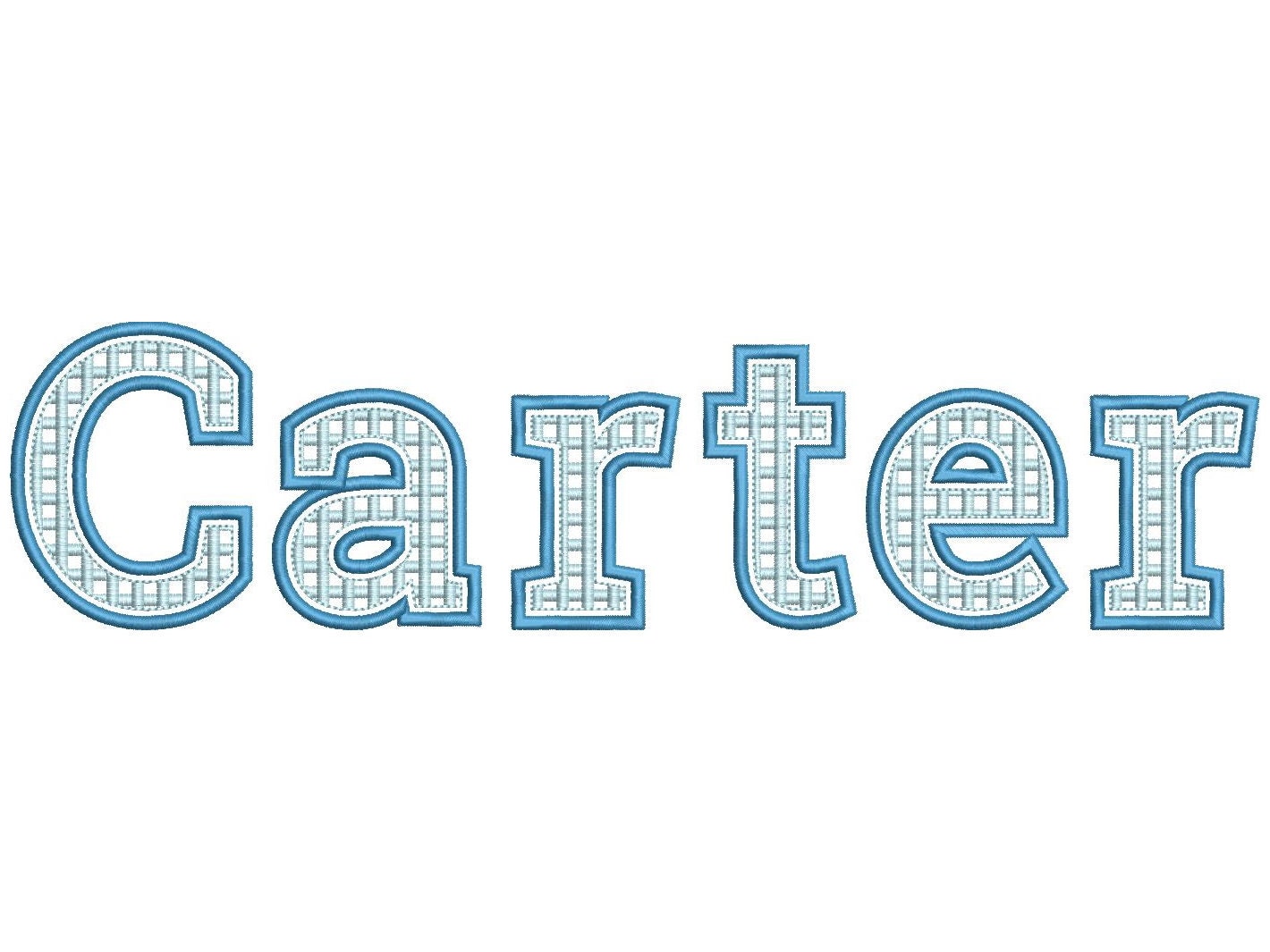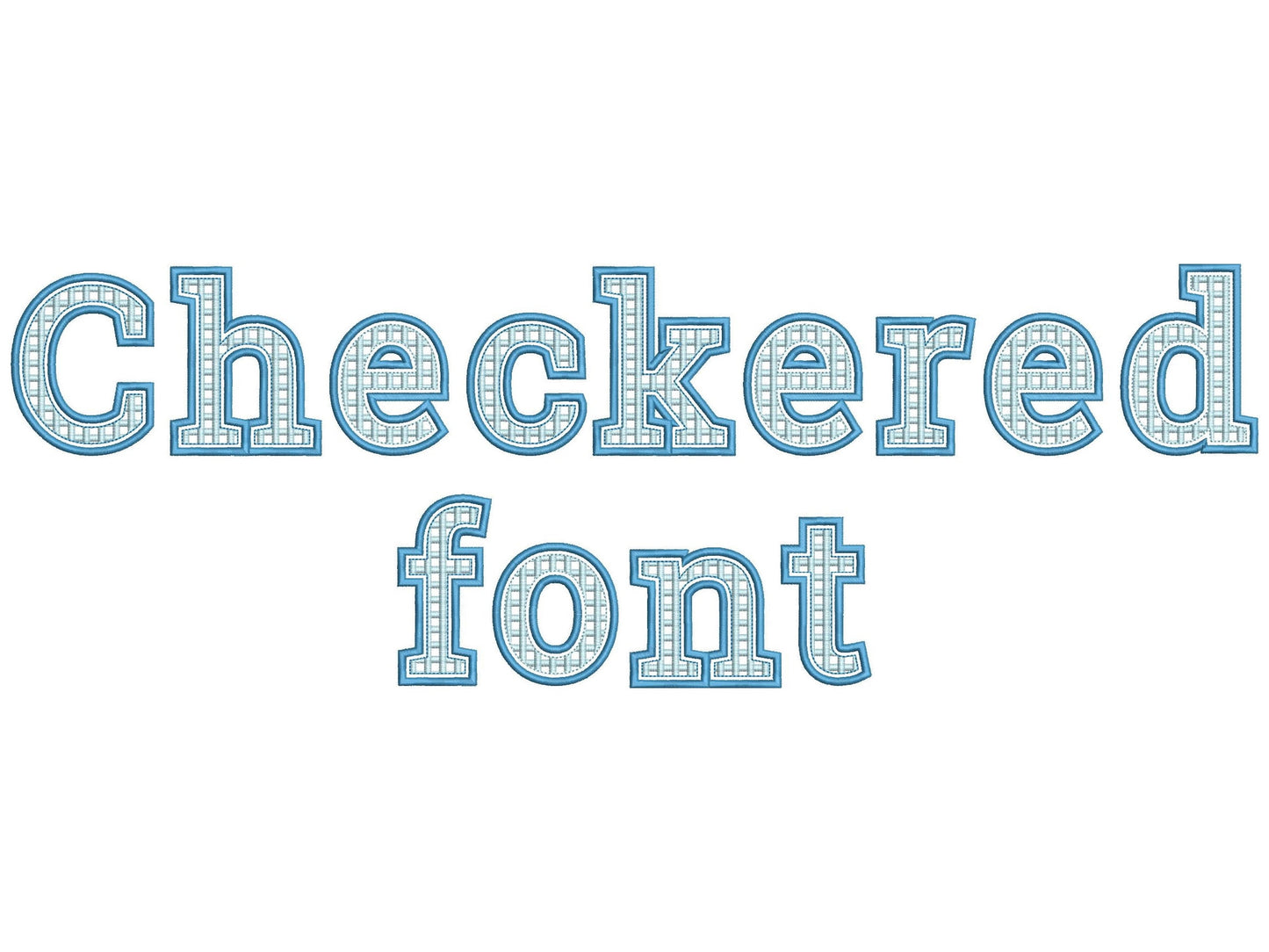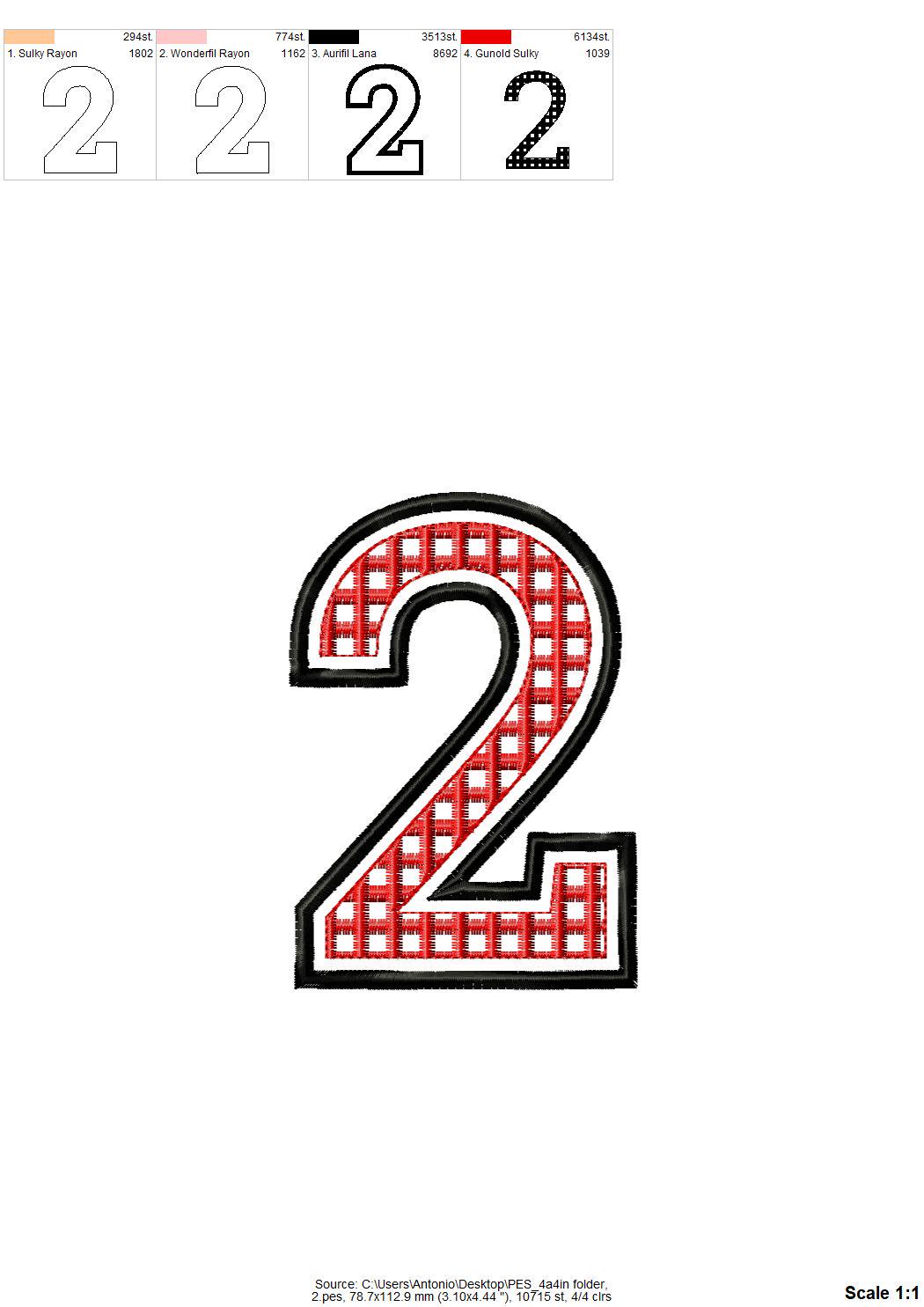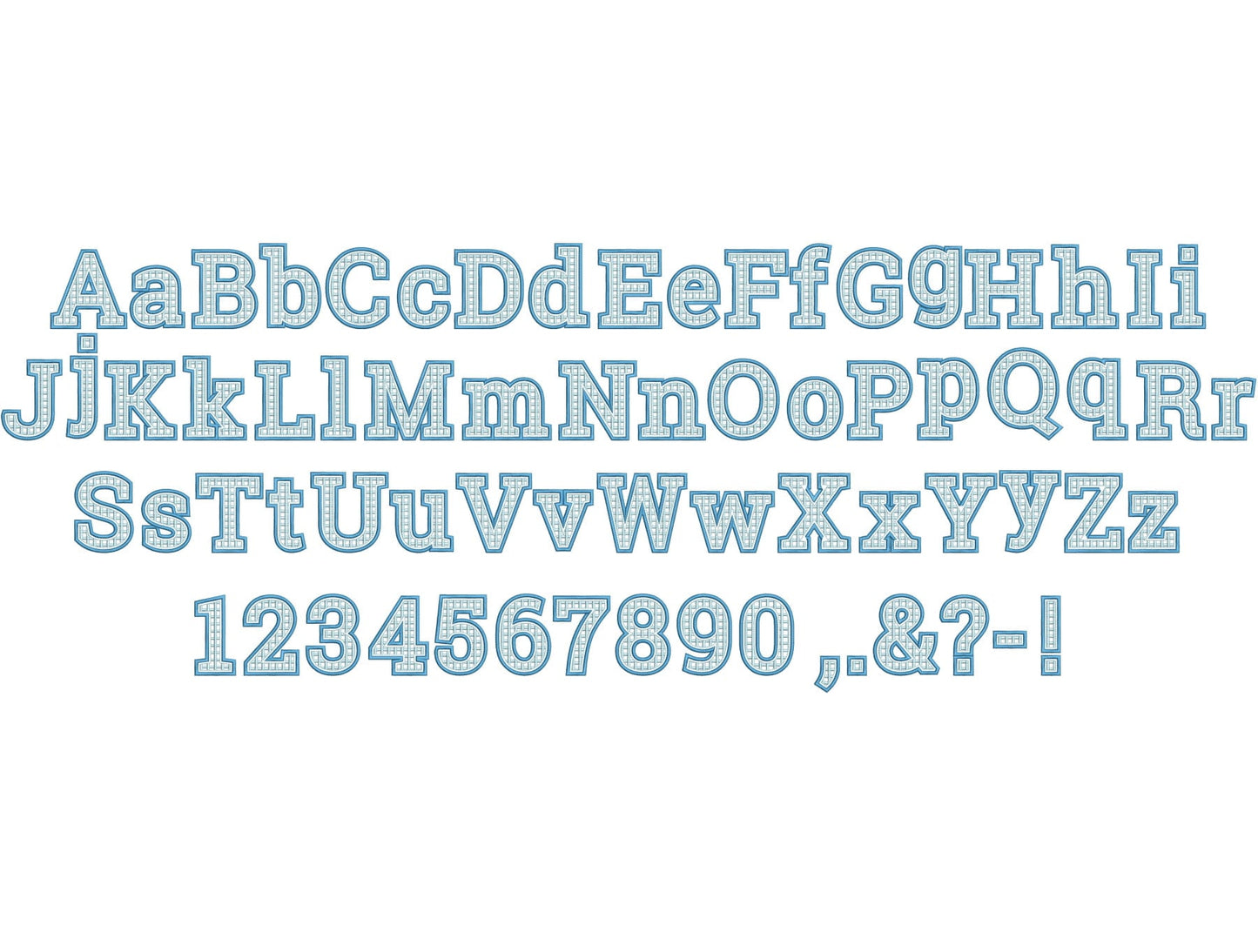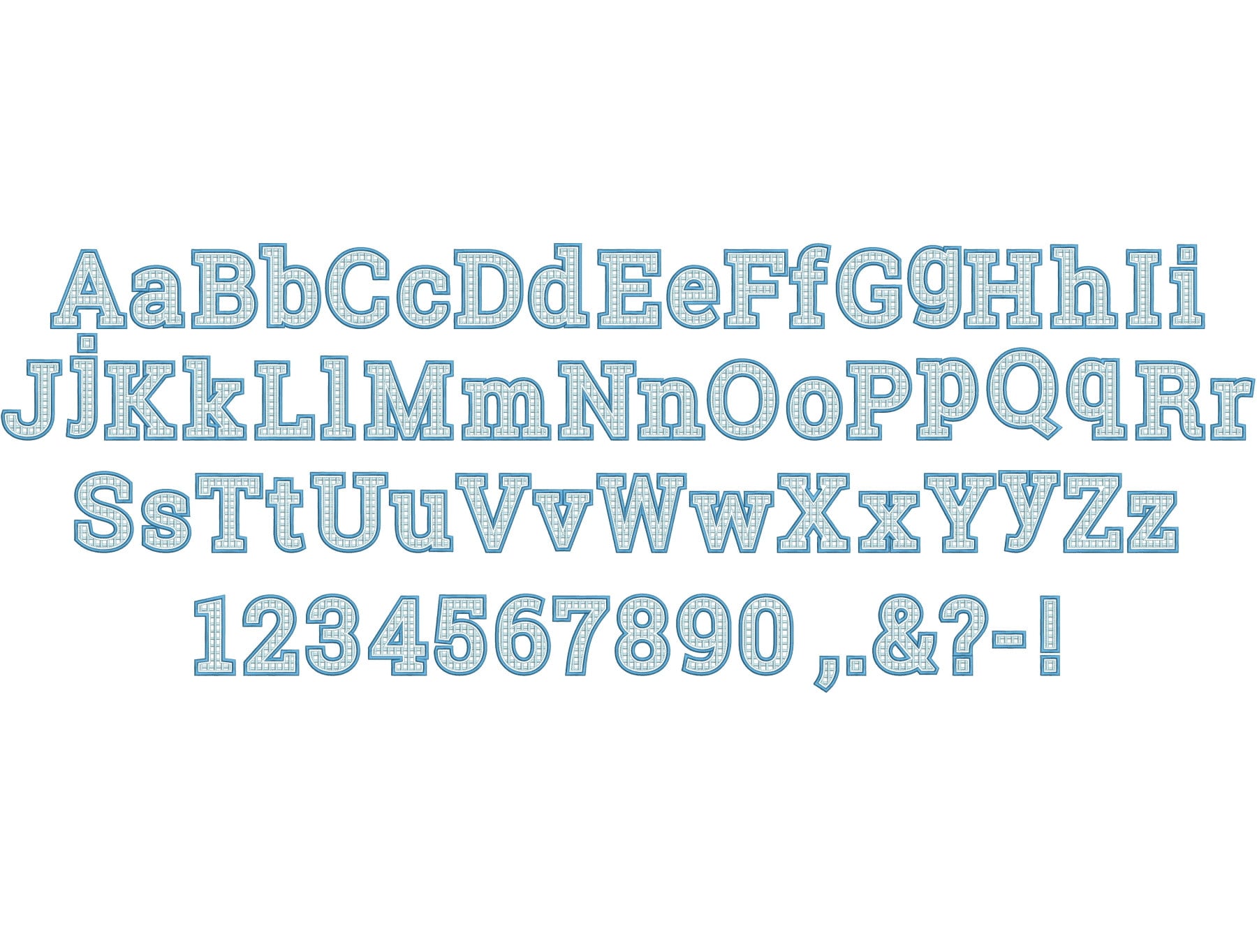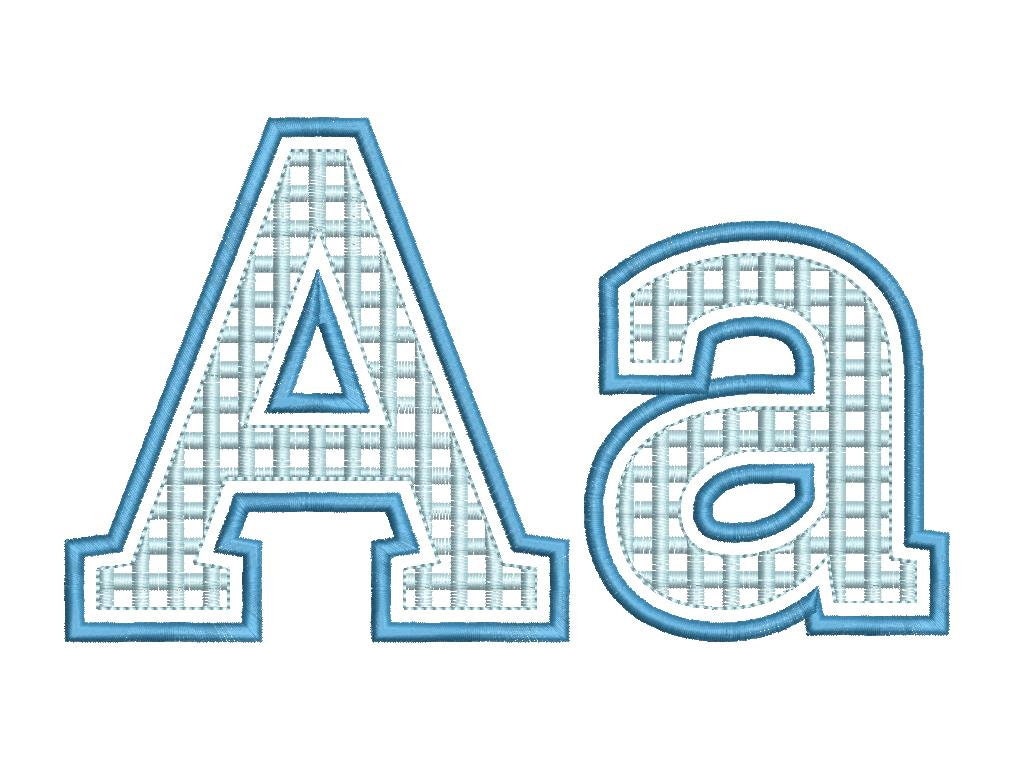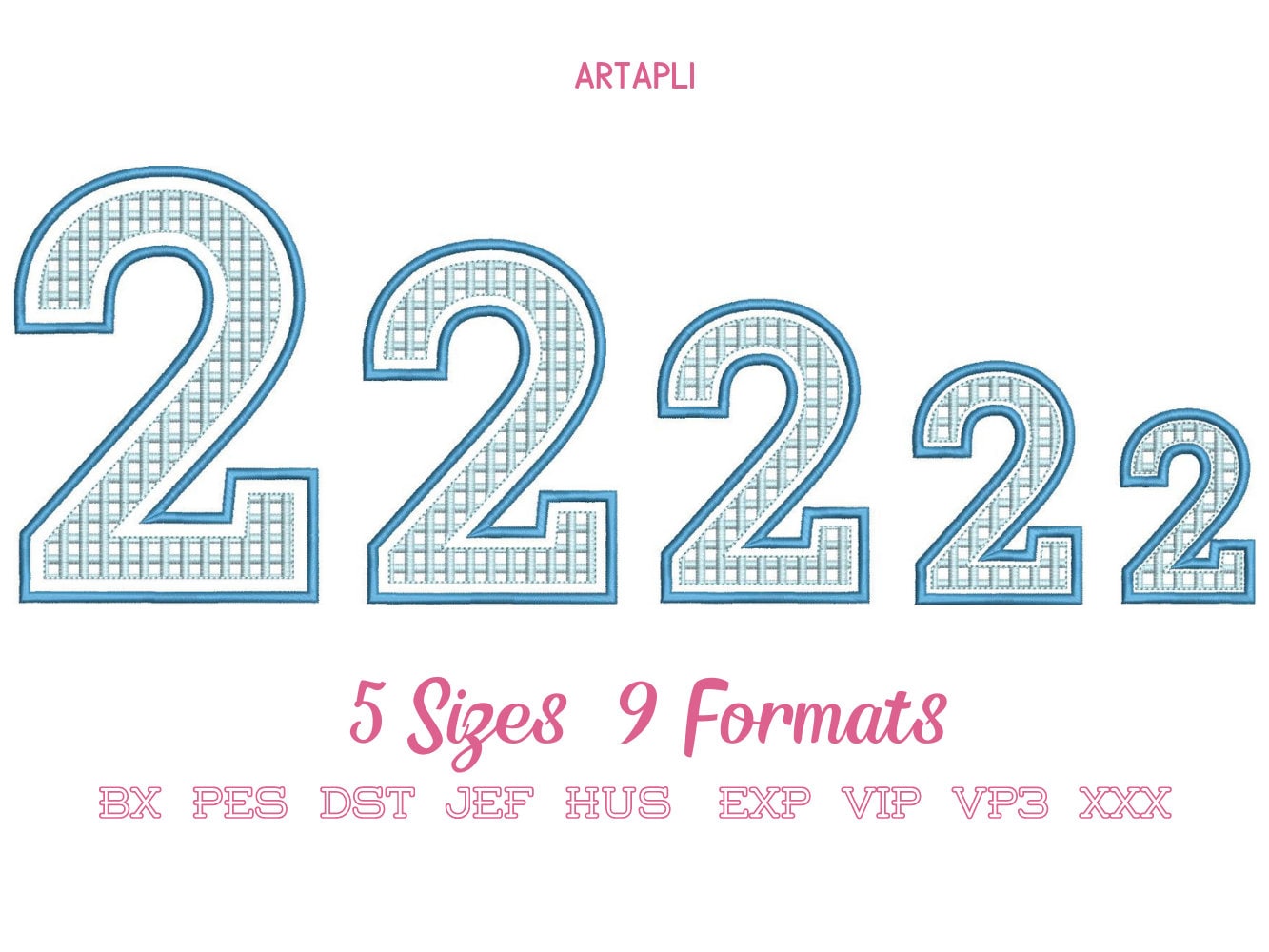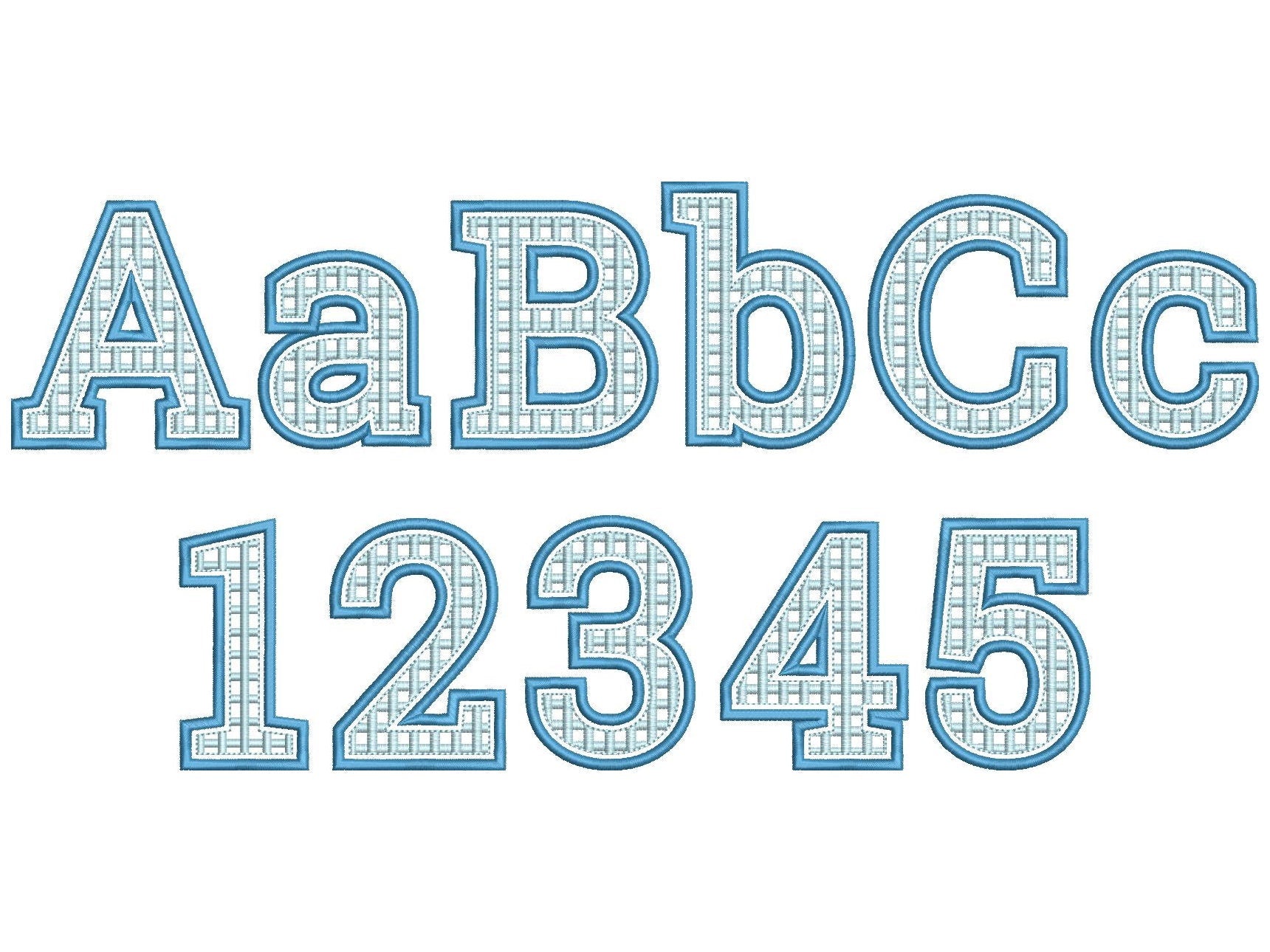
Classy Plaid Patterned Font Applique
Or click to open the linkA classy checkered plaid applique font; the plaid print is part of the stitching and the applique fabric shows through. Great for kids' names, pillows and bags.
Uppercase and lowercase letters, numbers 0 to 9 and punctuation, in five sizes: 2.8, 3.5, 4.4, 5.2 and 6.3 inches.
- Checkered plaid applique font
- Uppercase and lowercase letters, numbers 0-9, punctuation
- 5 sizes, 2.8 to 6.3 in